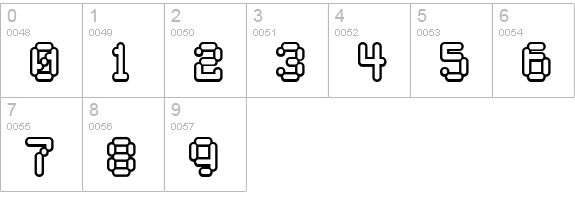
Rocketman font is a bold and modern typeface that exudes energy and dynamism. Its sleek lines and sharp edges give off a futuristic vibe, making it perfect for projects that require a touch of innovation and creativity. Whether you're designing a poster, logo, or website, Rocketman font will make your text pop and stand out. The best part? Rocketman font is available for free download at FontsMarket.com. This means you can easily add this unique font to your collection without breaking the bank. So go ahead and give your designs a boost with Rocketman font today!